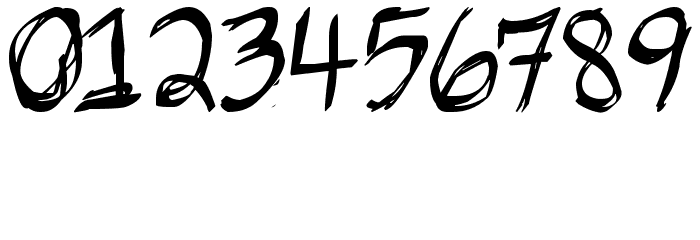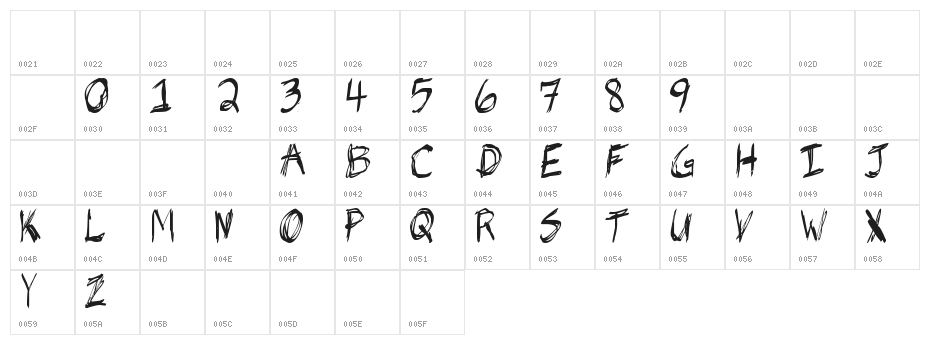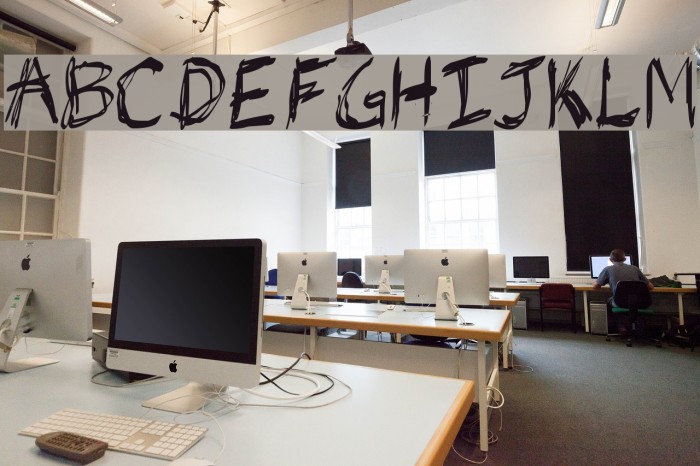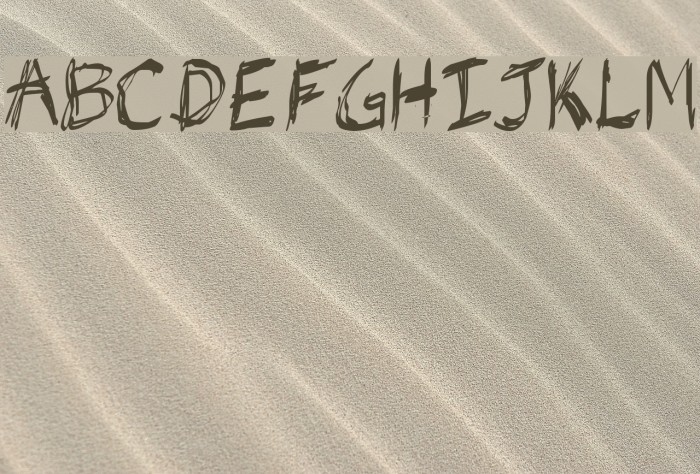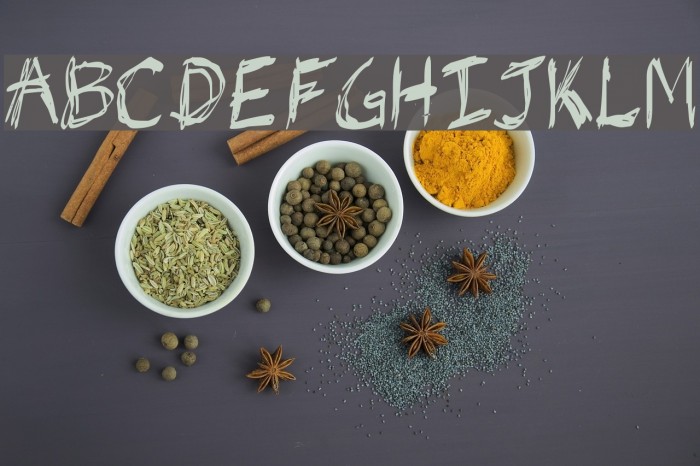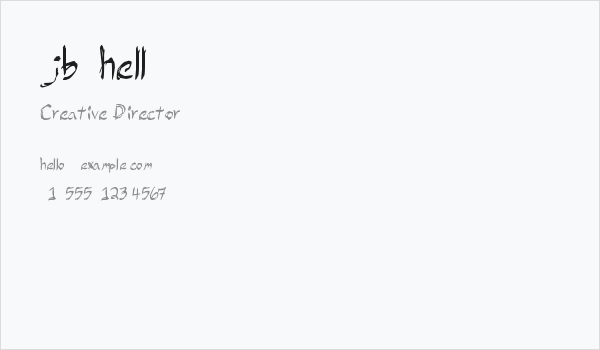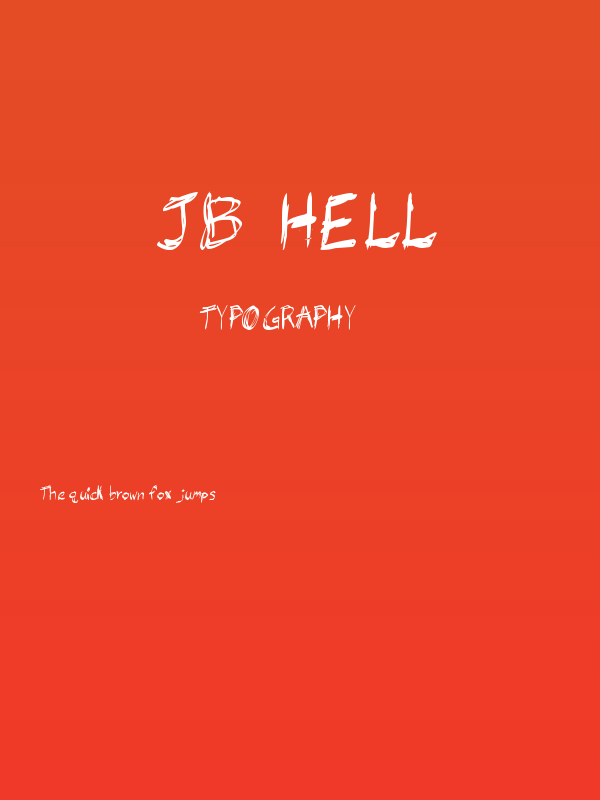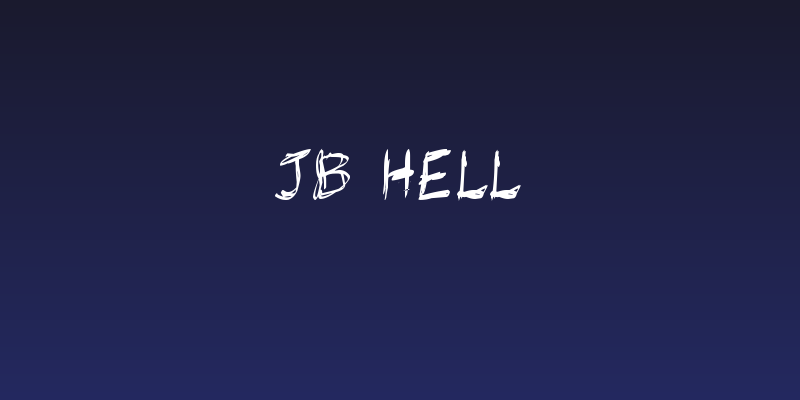
jb_hell Font
jb_hell Description
This font exudes a raw, energetic vibe with its hand-drawn, brush-like strokes. Each character is uniquely crafted, giving an impression of spontaneity and artistic flair. The uppercase and lowercase letters maintain a consistent style, with jagged edges and varying stroke thickness that add to its dynamic appearance. Numbers and special characters follow the same expressive design, making the font suitable for creative and unconventional projects. Its chaotic yet controlled form makes it ideal for designs that require a bold statement.
| Proposed Projects | Ideal for album covers, graffiti art, posters, and edgy branding projects. |